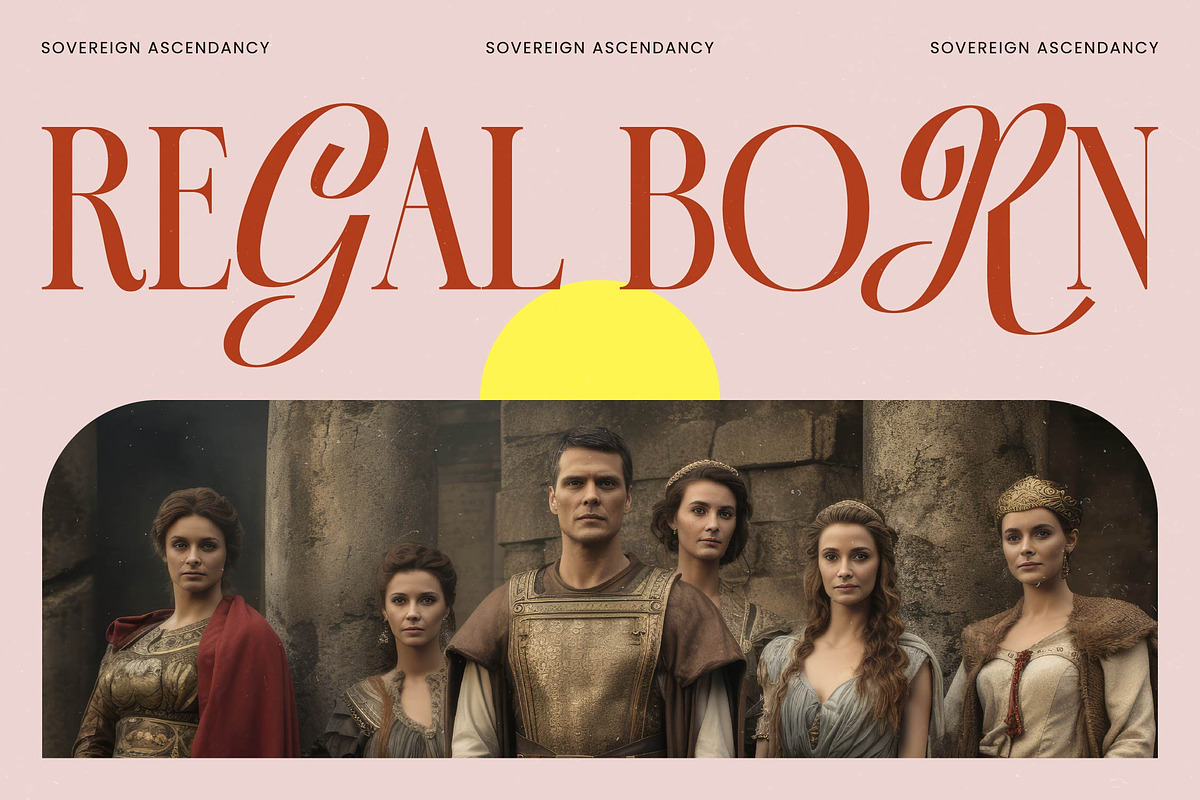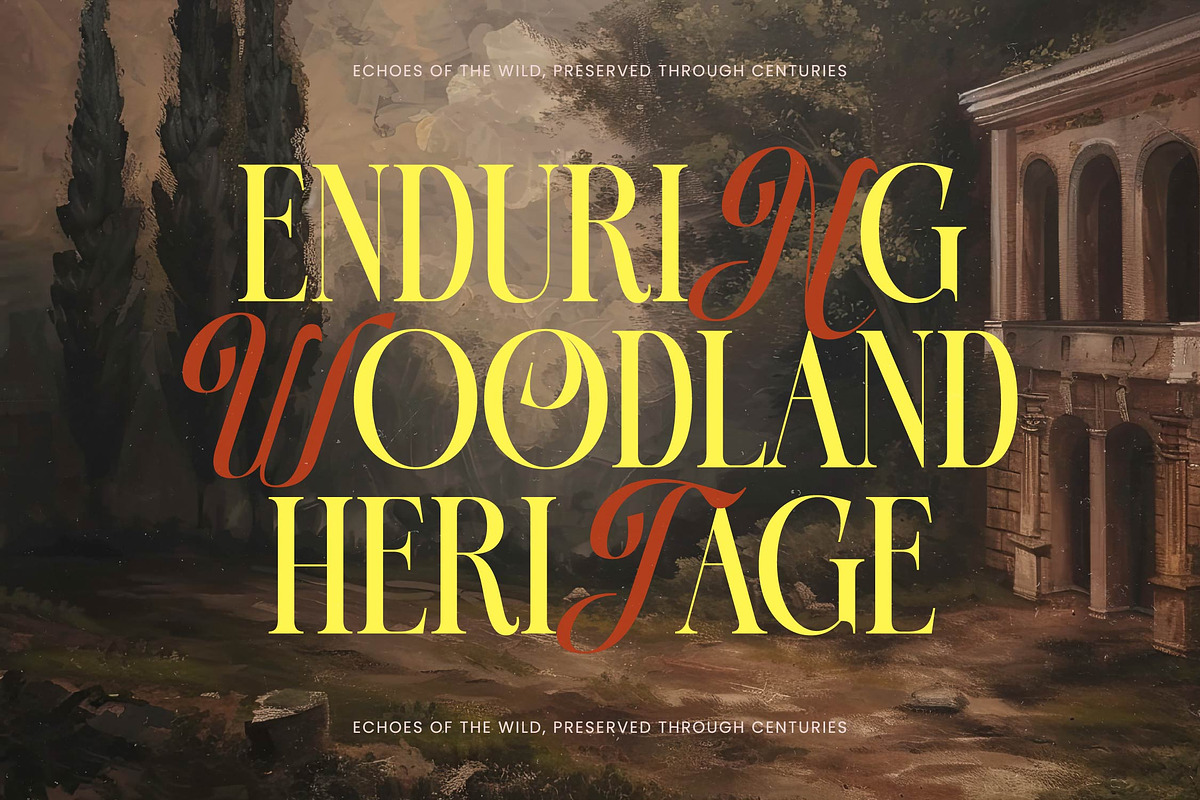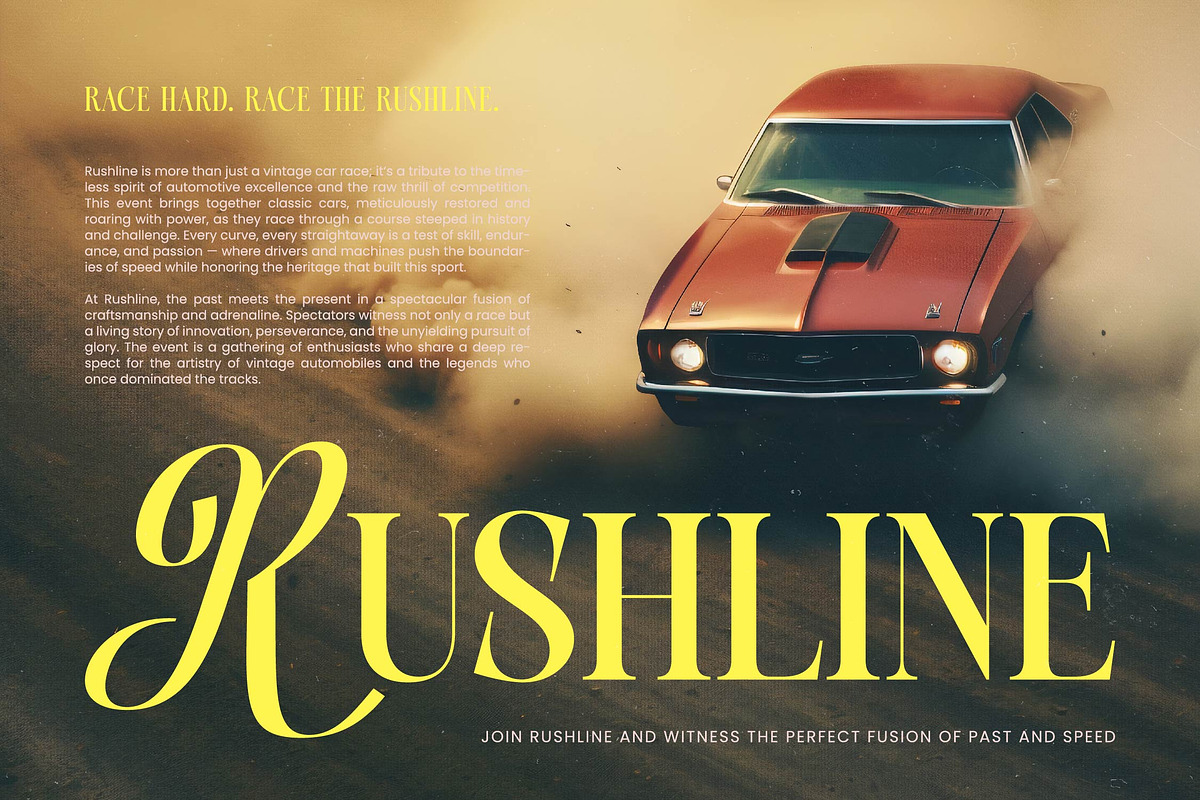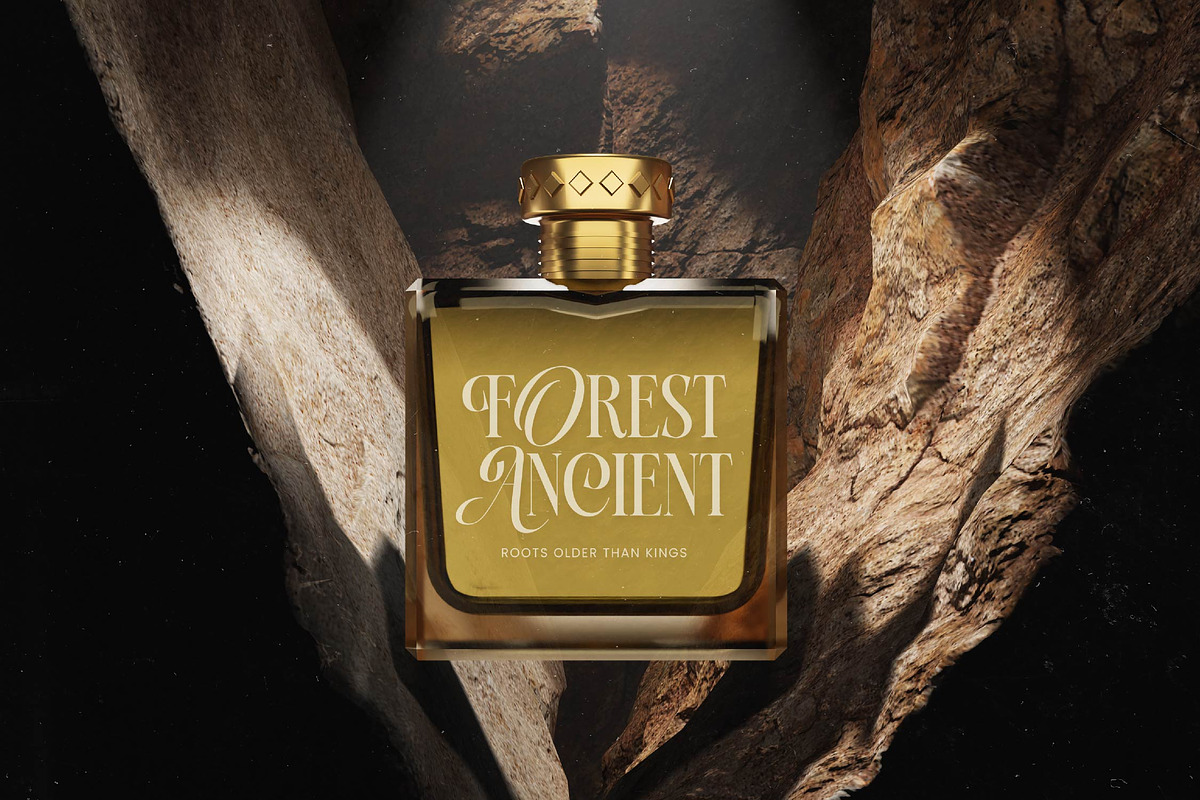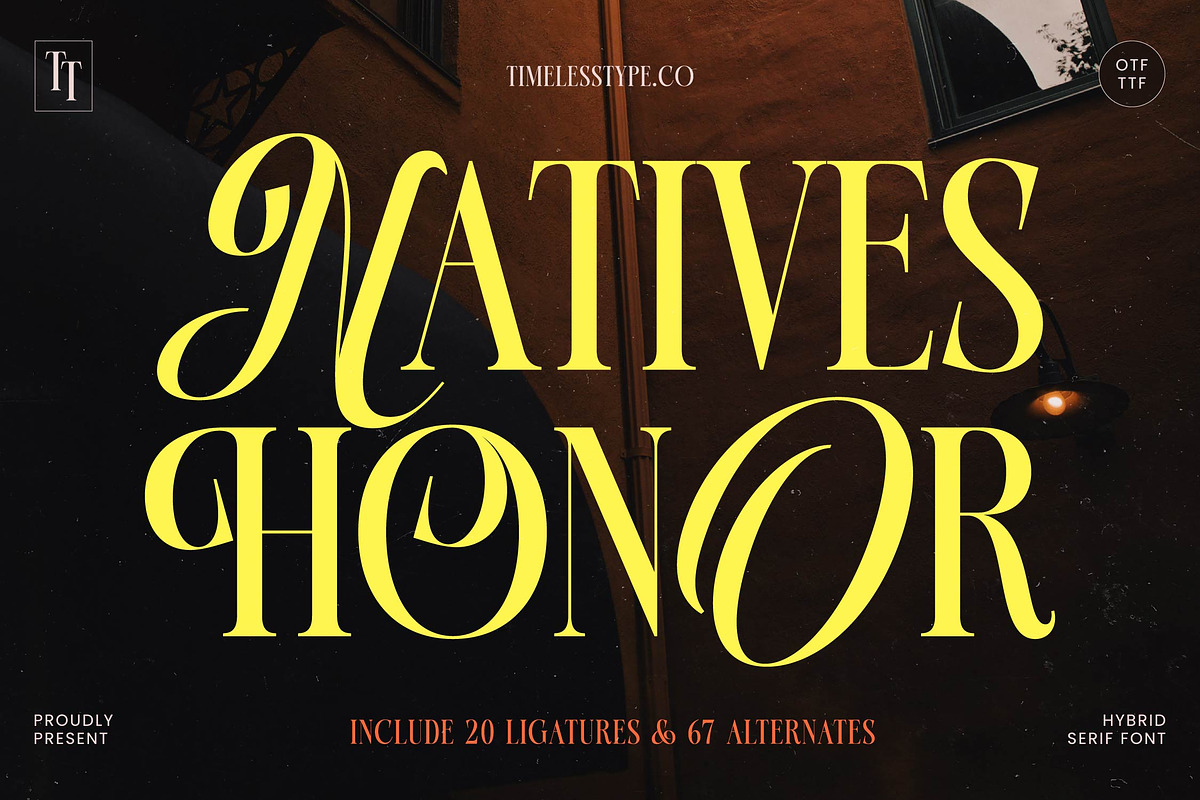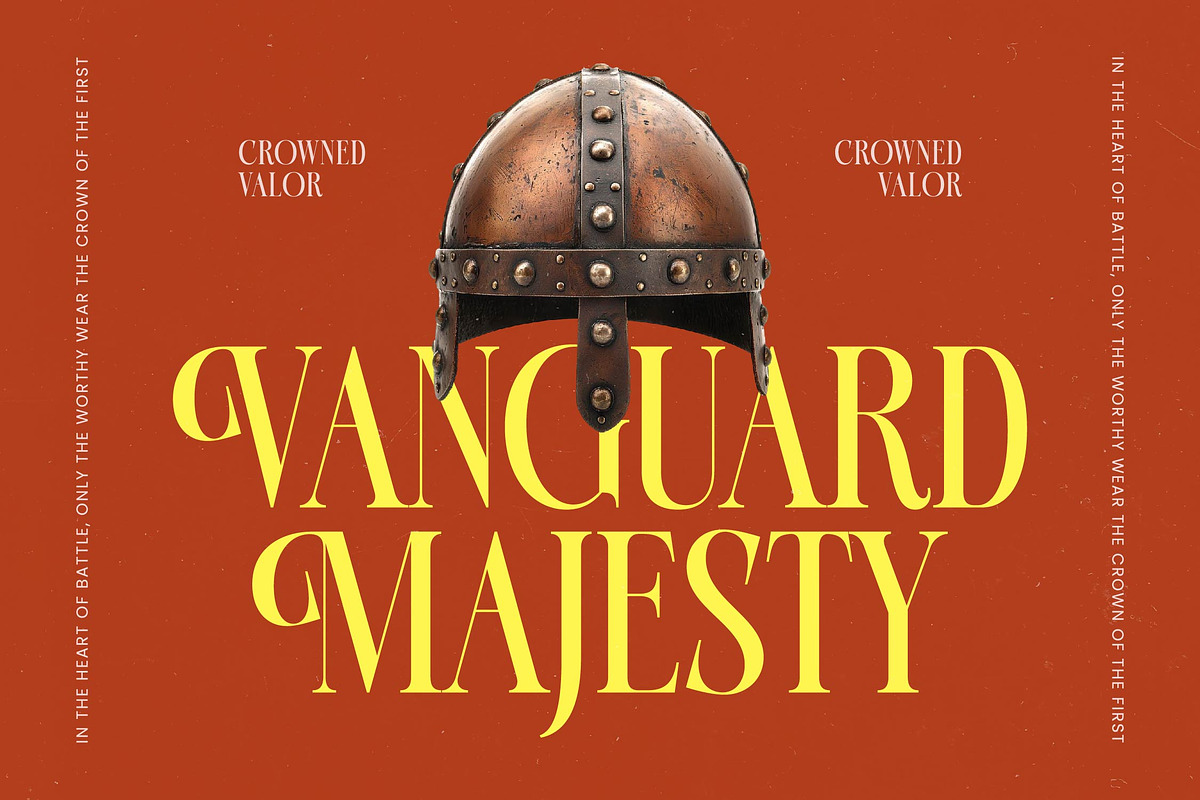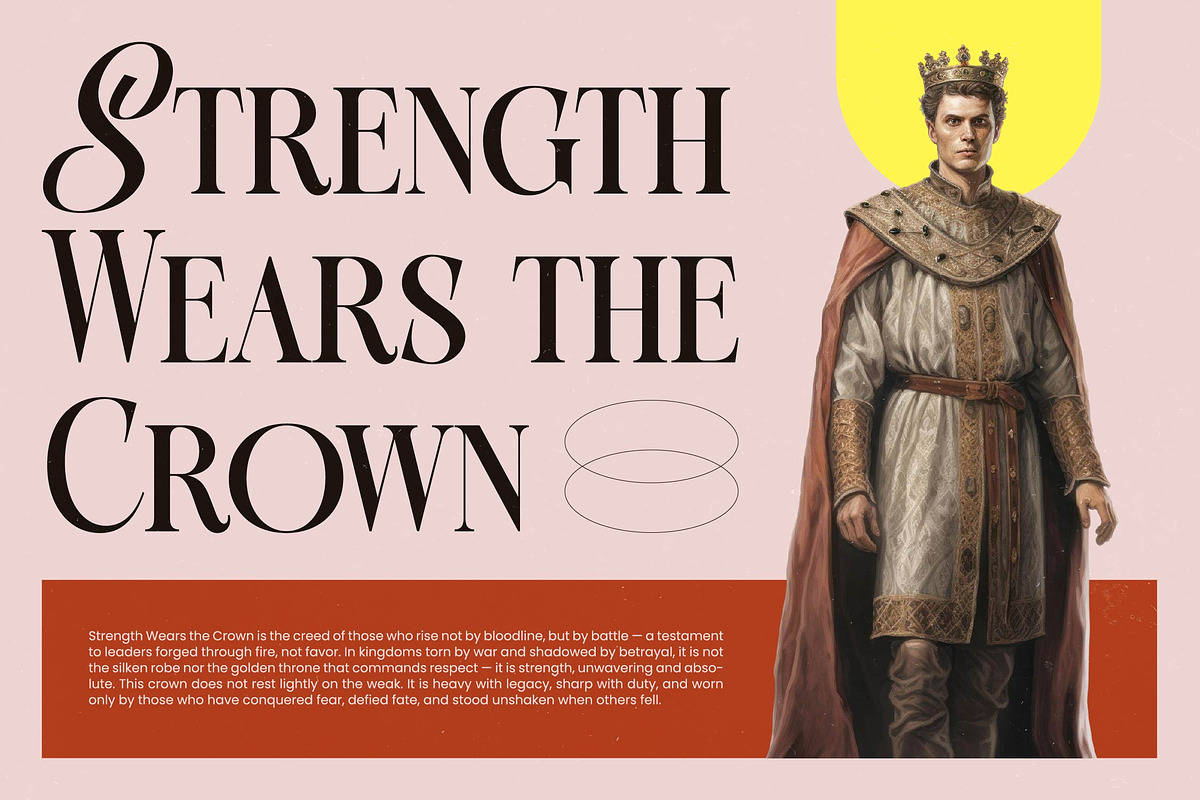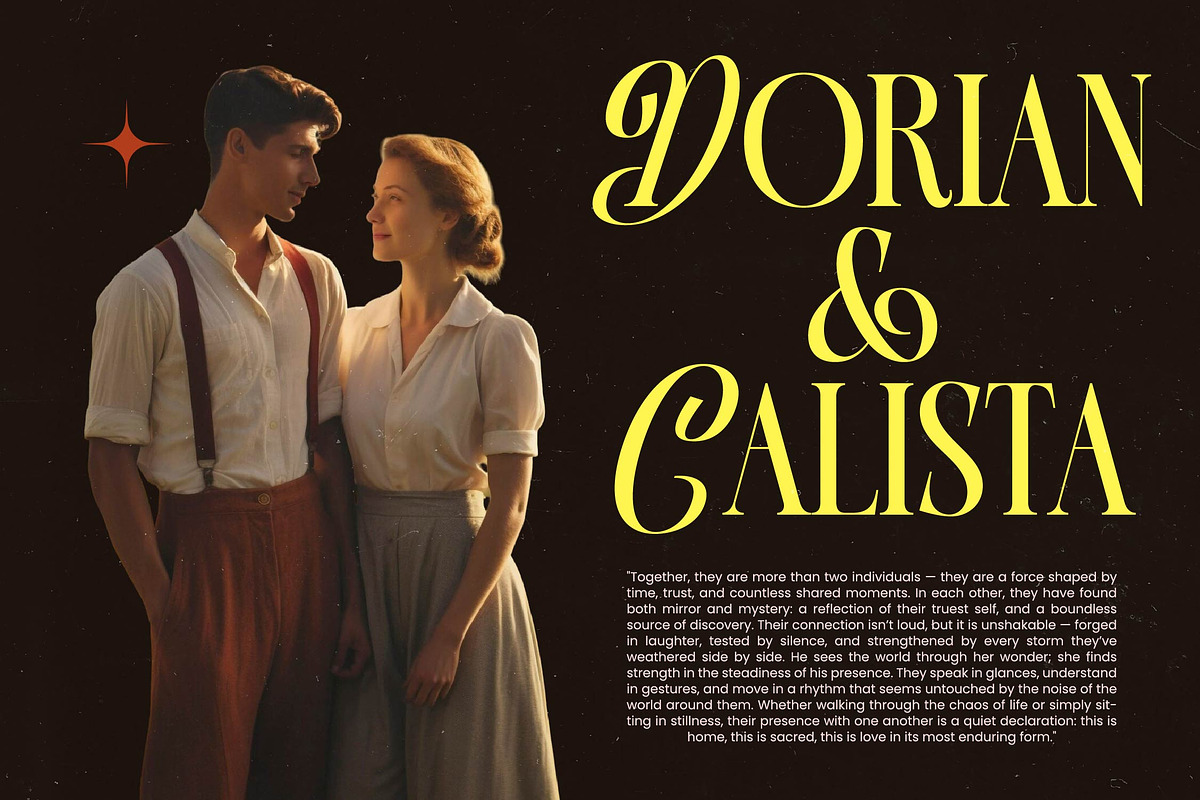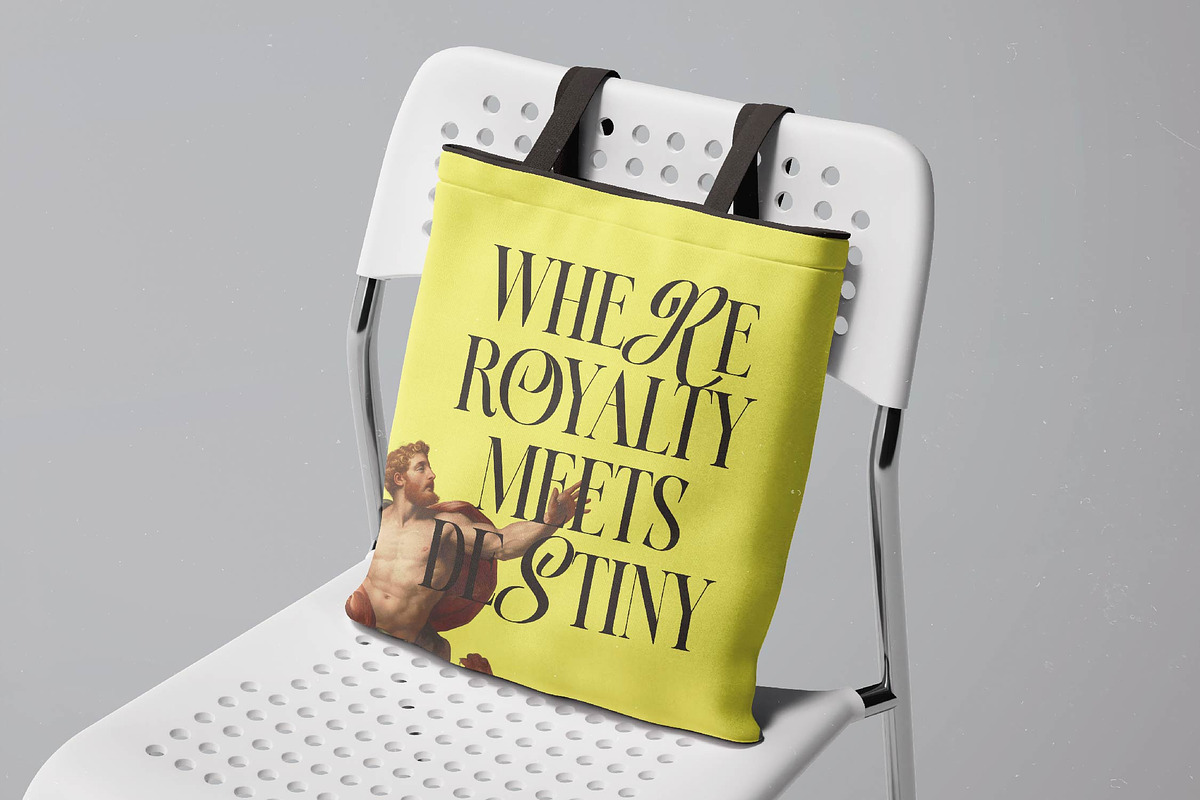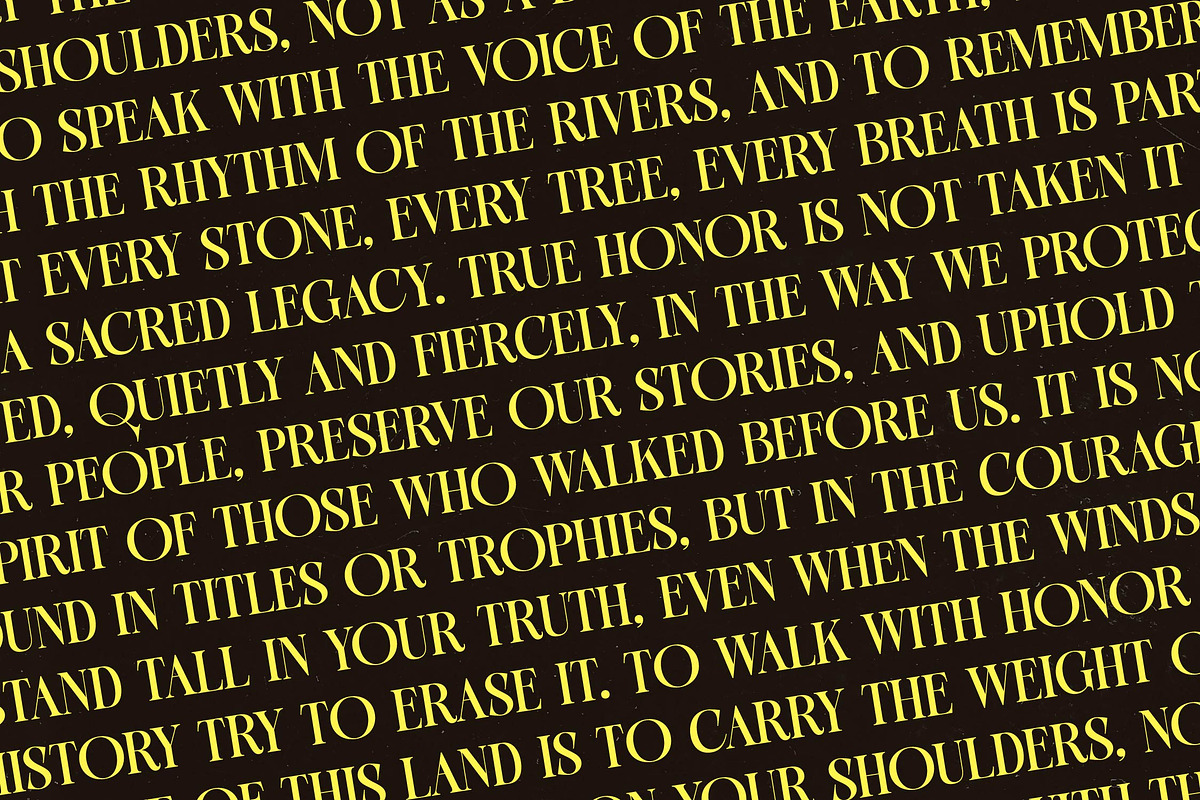
Natives Honor Elegant Hybrid Serif
Step into a world of refined elegance with Natives Honor, a typeface designed to command attention while maintaining a graceful, timeless allure. This font bridges the gap between classical heritage and contemporary sophistication, making every character a piece of art.
Drawing inspiration from the grandiosity of historical architecture and the fluid strokes of traditional calligraphy, this font captures a unique sense of movement. It feels like a walk through a sun-drenched European gallery, blending the strength of stone monuments with the delicate touch of hand-painted masterpieces.
As a modern serif display choice, it delivers an unparalleled luxury typography experience that balances sharp edges with sweeping curves. The high-contrast serif design ensures a massive branding impact, making it an essential editorial font for designers who refuse to settle for the ordinary.
Aligned perfectly with the current modern serif trend, this typeface is a masterclass in character-driven typography. It caters to the growing demand for editorial display fonts that offer both legibility and a distinct, recognizable voice in a crowded digital landscape.
This versatile typeface is the ultimate solution for high-end logo design and comprehensive branding projects that require a touch of class. From sophisticated editorial layouts and luxury packaging to romantic wedding stationery and avant-garde fashion lookbooks, it adapts flawlessly to elevate your vision.
The package is loaded with creative potential, featuring 20 unique ligatures and 67 artistic alternates that allow for custom-tailored text arrangements. With full multilingual support and a wide array of international characters, it ensures your message resonates across borders while maintaining its stylistic integrity through decorative swashes.